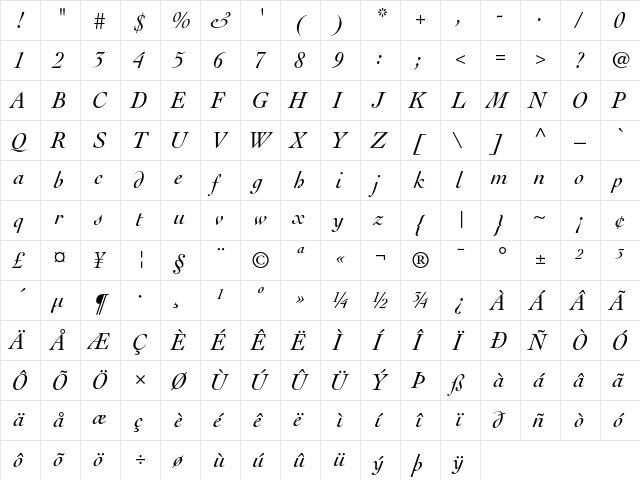
Cochin Italic Font Preview
Cochin Italic
Design Context for Cochin Typeface
Cochin is a composed and adaptable typeface that performs quietly and consistently across a wide range of design contexts. Its italic angle brings a sense of urgency and motion to the letterforms.
Pro Tip: Try Cochin for annotation and caption copy alongside an upright companion — the contrast in angle creates a dynamic but ordered typographic system.